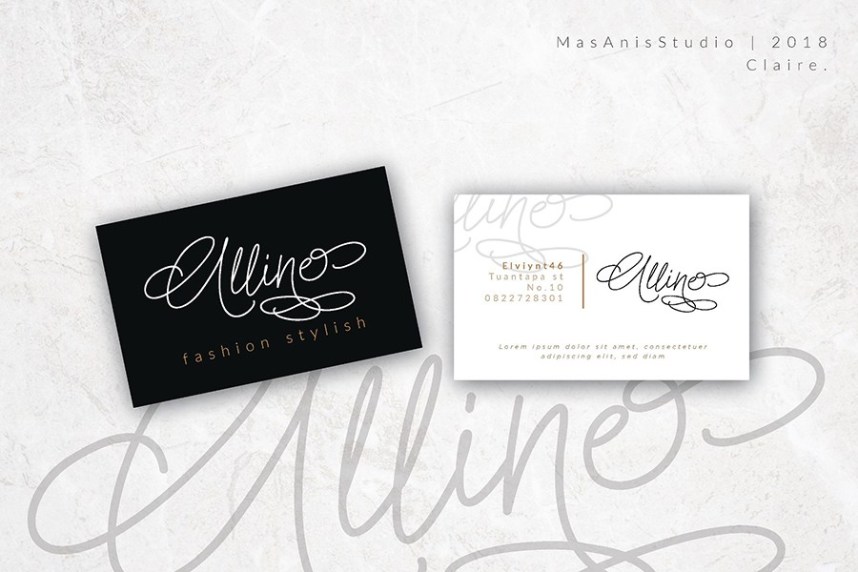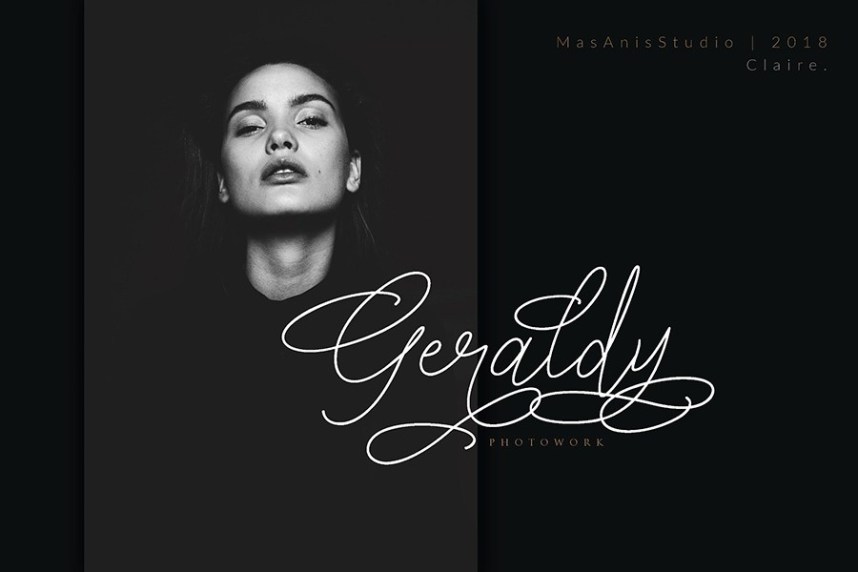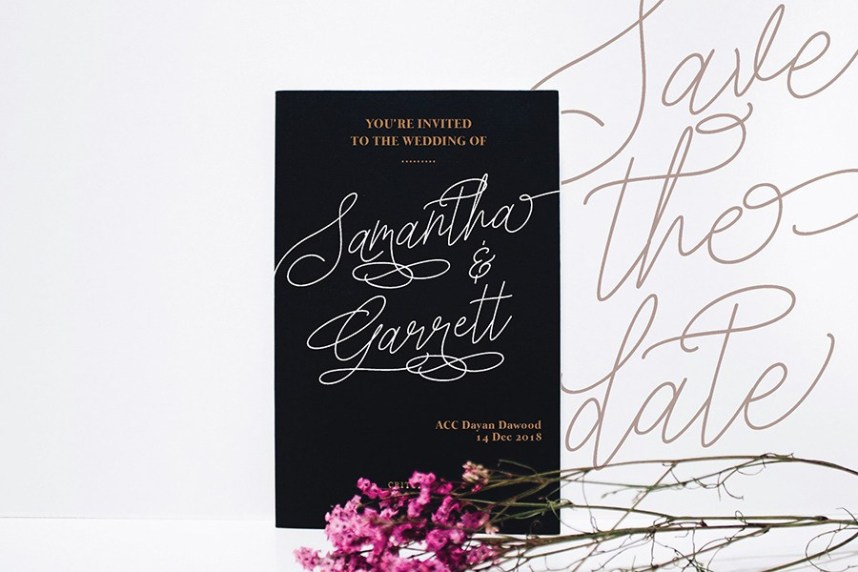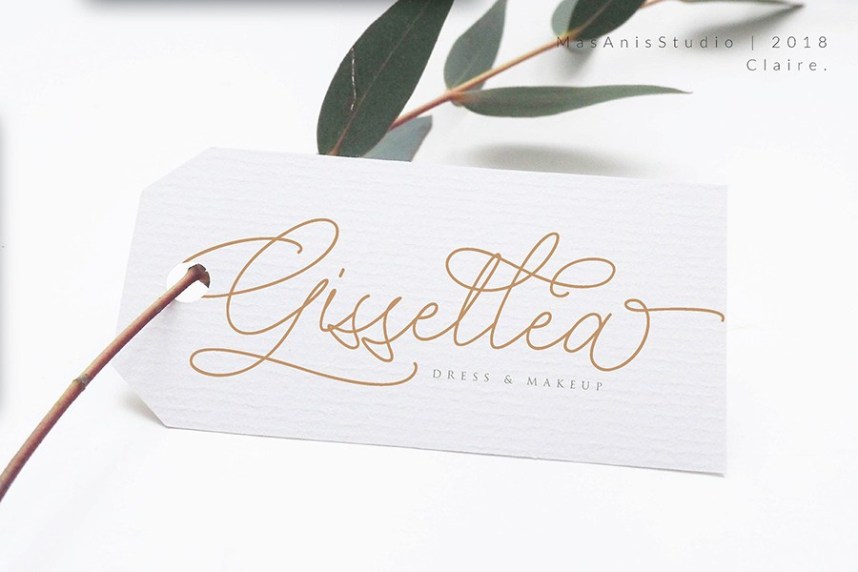
Claire Script Font – Free Demo
Start the new day with a handwritten script font. Introducing Claire. It is designed and shared by Mas Anis. Claire was built with OpenType features and includes beginning and ending swashes, alternate swash characters for most lowercase letters, numbers, punctuation, alternates, ligatures and it also supports other languages 🙂